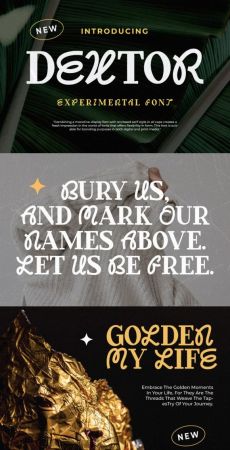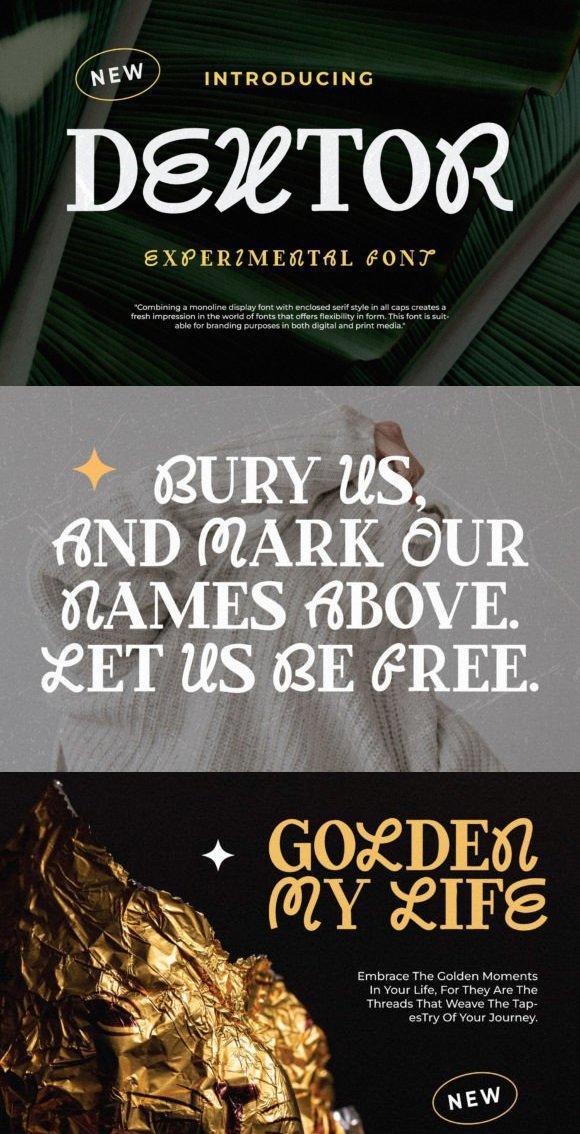
CM - Dextor - Display Font 92014232
Welcome to the era of experimental typography that inspires! Introducing Dextor – a font innovation that marries the elegance of serifs in lowercase with the boldness of display script in uppercase. Designed to inspire and make a statement, Dextor embodies the essence of boundless creativity.